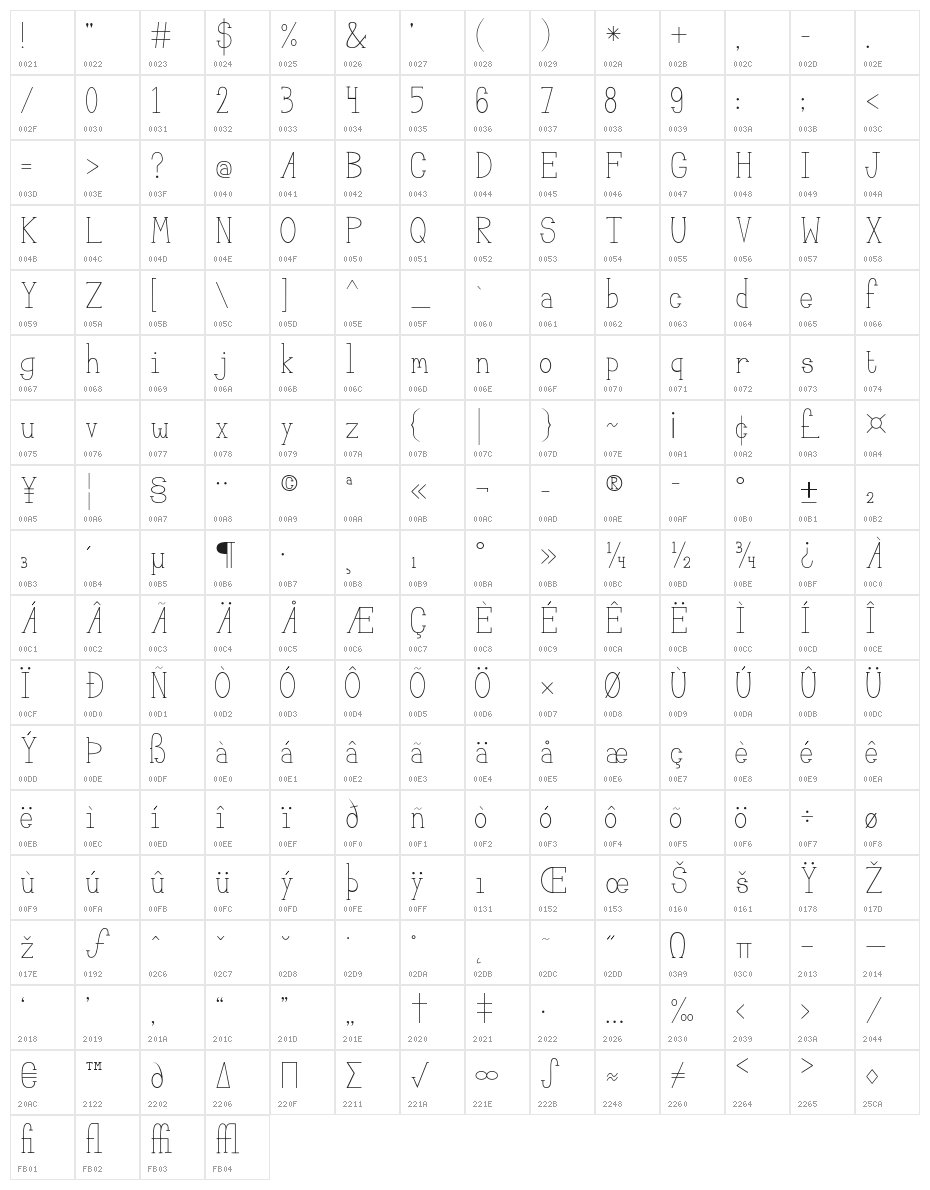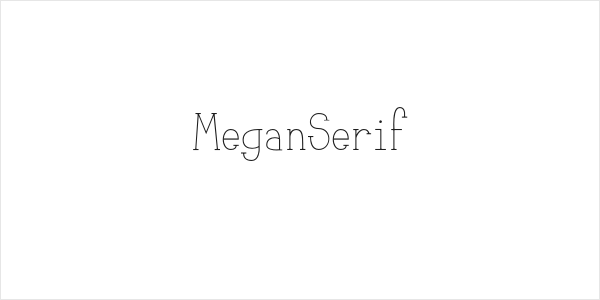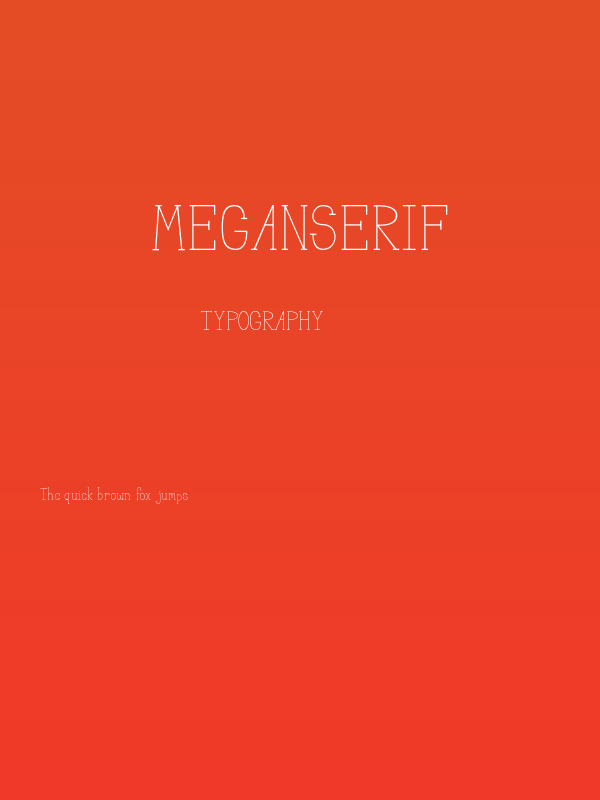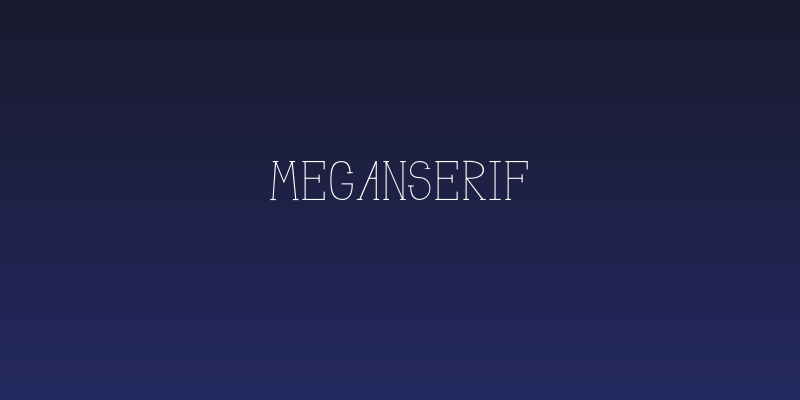
MeganSerif Font
MeganSerif Description
This font showcases a unique blend of modern and classic serif elements. The characters are elegantly elongated with thin, consistent strokes that give it a refined and sophisticated appearance. The serifs are subtle yet distinct, adding a touch of tradition to the overall modern aesthetic. The uppercase letters are tall and commanding, while the lowercase letters maintain a balanced and harmonious flow. Numbers are clear and legible, making them suitable for various applications. Special characters are well-integrated, maintaining the font's cohesive style. This font is perfect for projects that require a touch of elegance and clarity.
| Proposed Projects | Ideal for editorial design, branding, invitations, and elegant signage. |